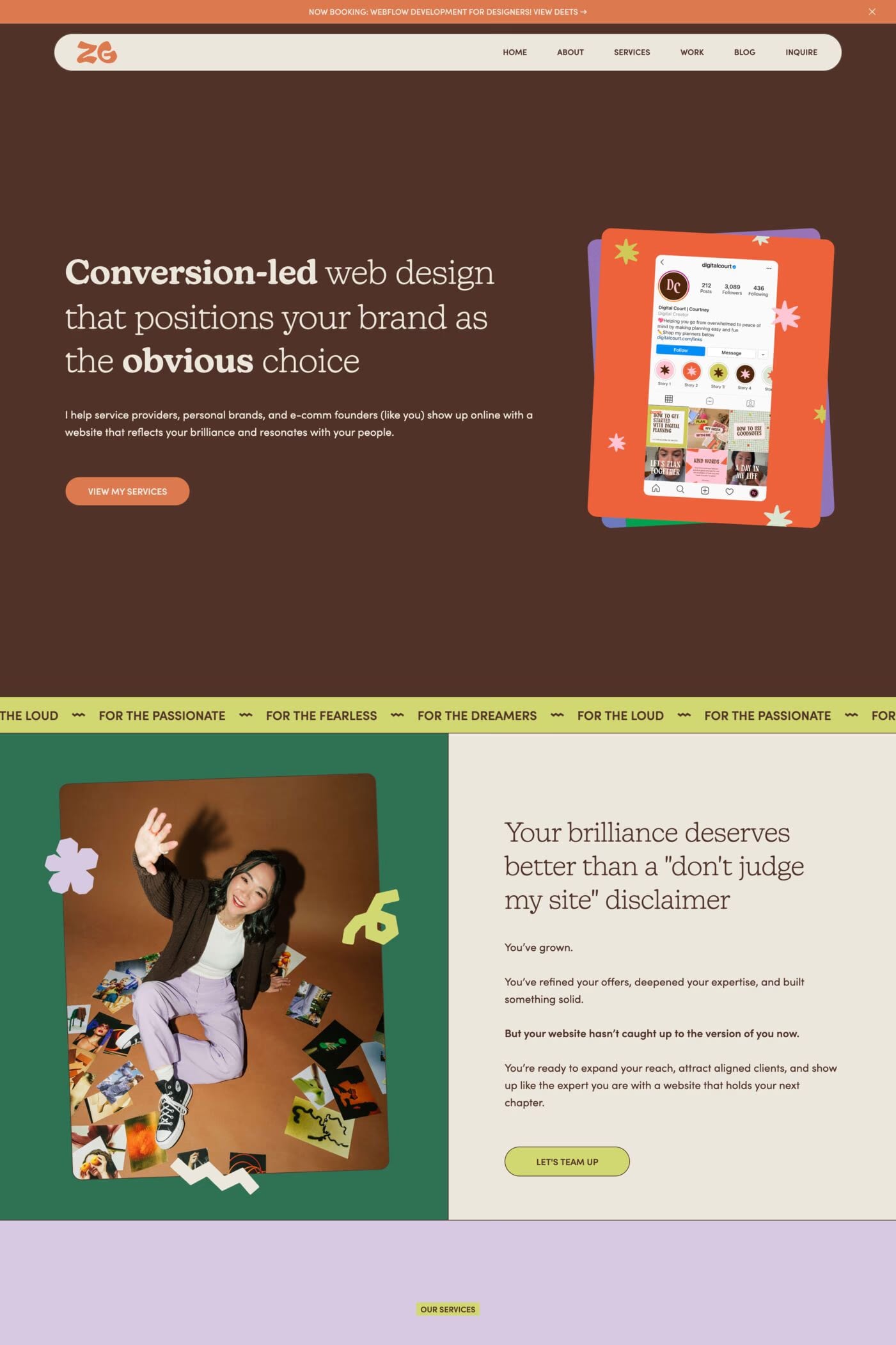
New Kansas is a serif typeface from Newlyn.
New Kansas is a contemporary reworking of Oswald Cooper’s Cooper Black by the Newlyn foundry. The roman comes in eight weights from Thin to Heavy, with italic, swash and extra-swash italic styles.
A1 features 2 websites using New Kansas, including Zig Zag Creative and Passionfroot. They lean towards Colourful, Serif, and Fun design styles, and they’re most often built with Webflow.